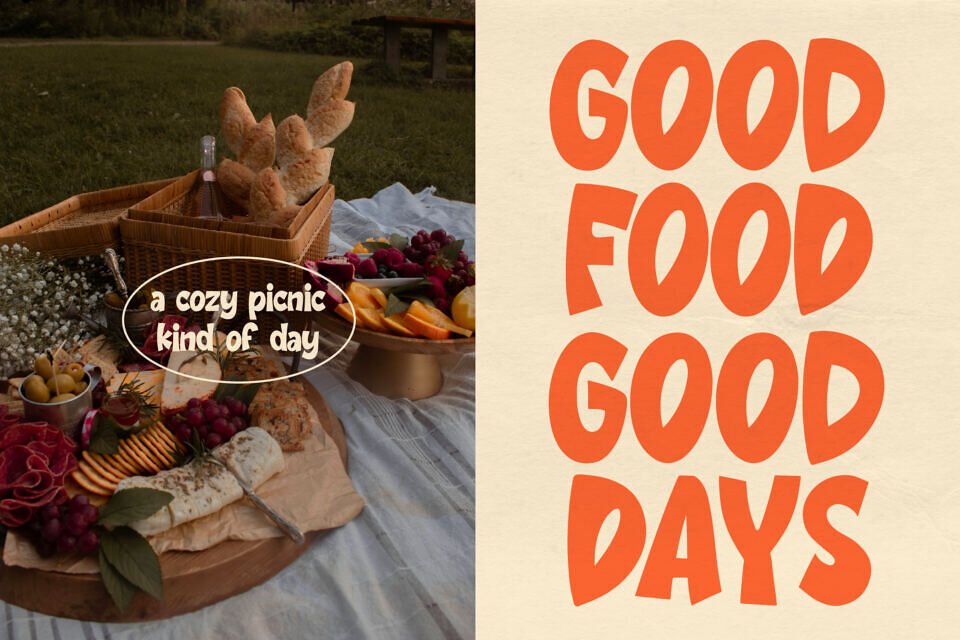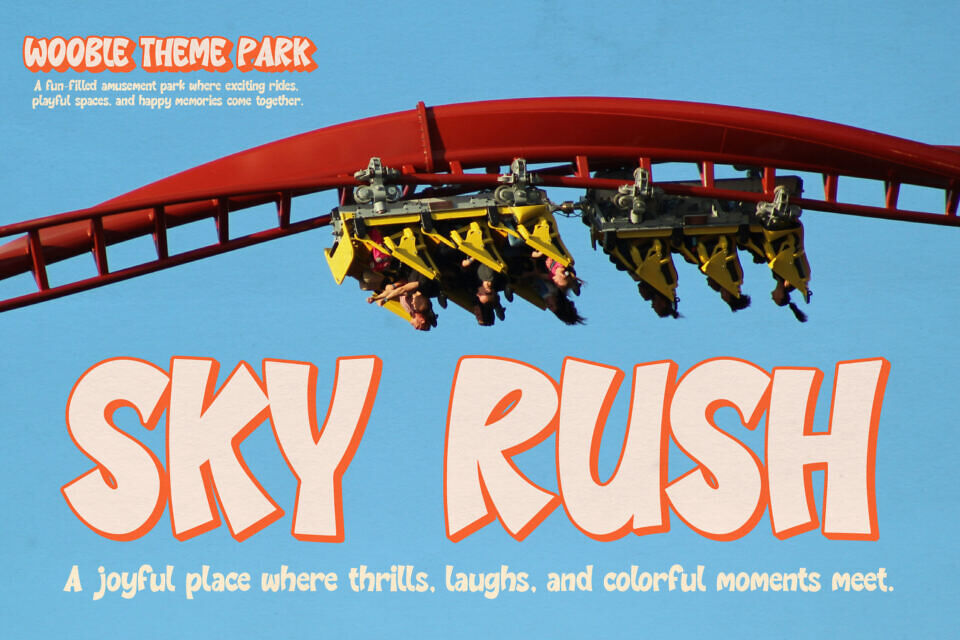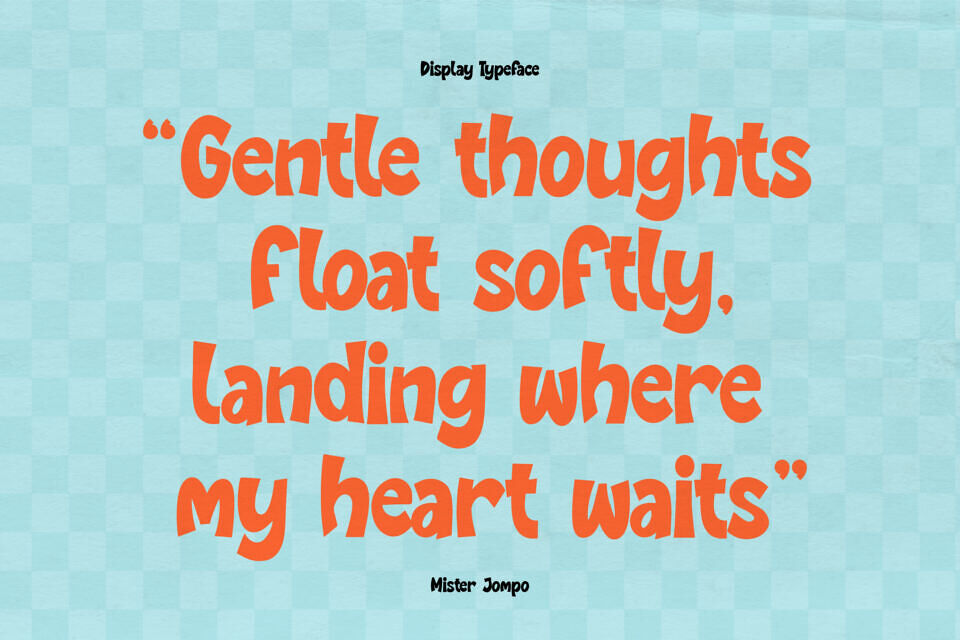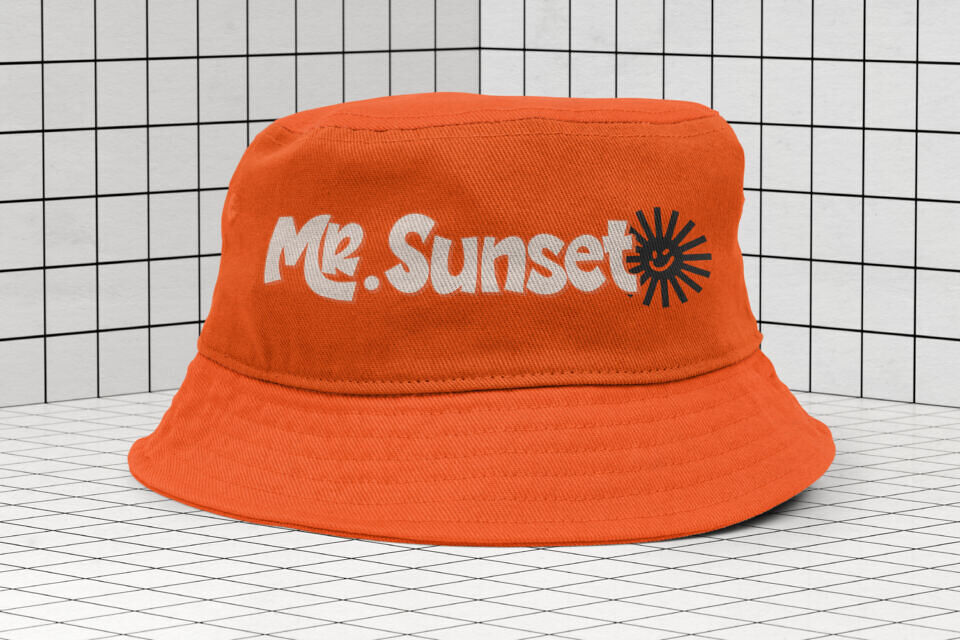
Mister Humble Font
Mister Humble is a vibrant, energetic, and unapologetically fun display typeface that brings a retro-modern punch to your creative projects. Characterized by its chunky, irregular letterforms and a charmingly “wobbly” aesthetic, this font captures the essence of 1970s psychedelic design reimagined for today.
Its bold weight and rhythmic movement make it an exceptional choice for eye-catching posters, playful branding, adventurous packaging, and standout social media headlines. Whether you are designing for a quirky toy brand or a trendy streetwear label, Mister Humble delivers a friendly yet high-impact personality that refuses to be ignored.